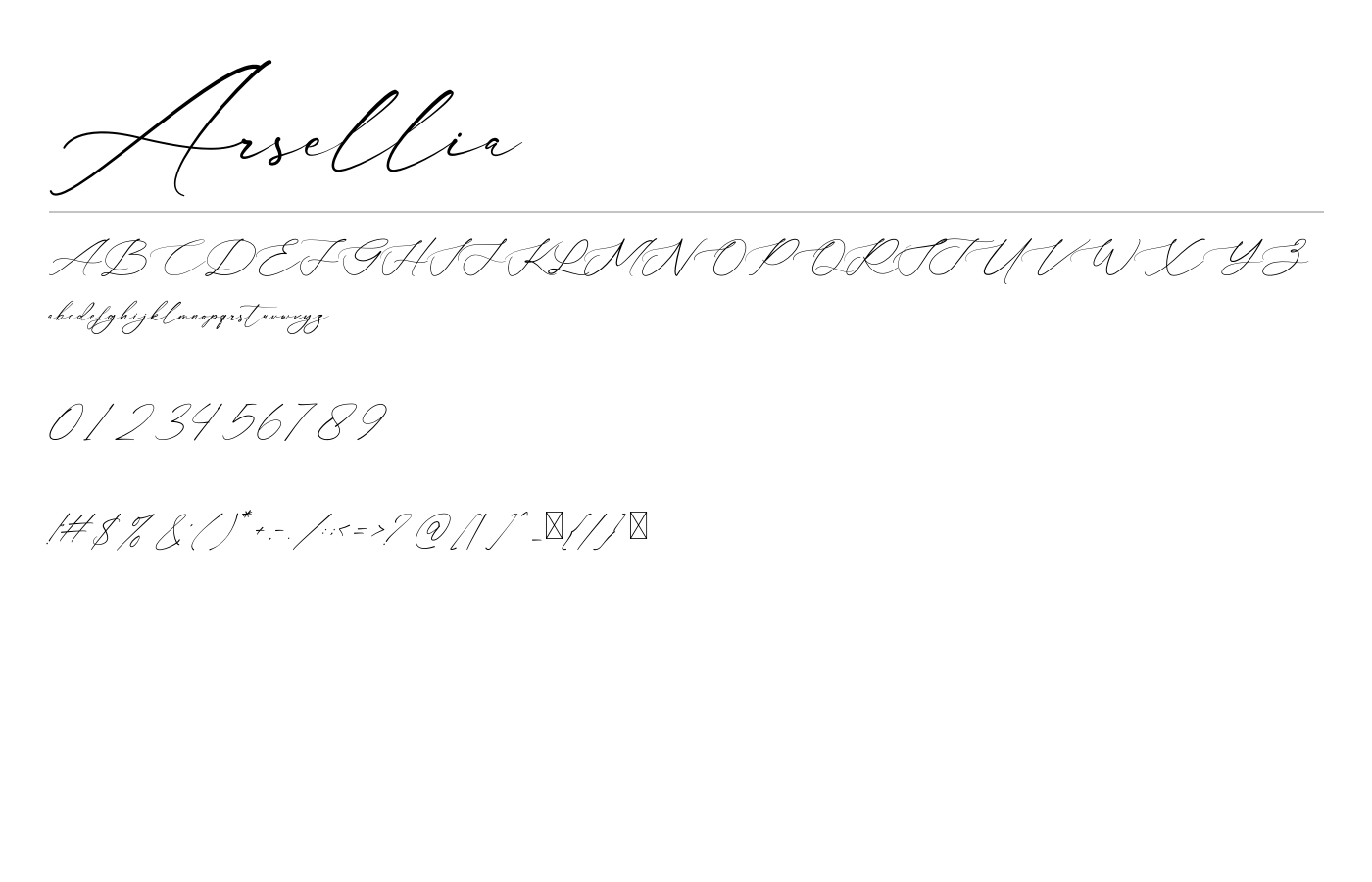
Arsellia is a delicate, elegant script font characterized by its thin, flowing strokes and graceful, handwritten style. Its fine lines and refined letterforms create a sophisticated, airy feel, making it ideal for wedding invitations, luxury branding, and feminine design projects seeking a romantic and stylish touch. This font shines in uses that require a personal, elegant flair, especially in headlines or decorative text.
Arsellia Font
About Arsellia Font
| Font family | Arsellia Font |